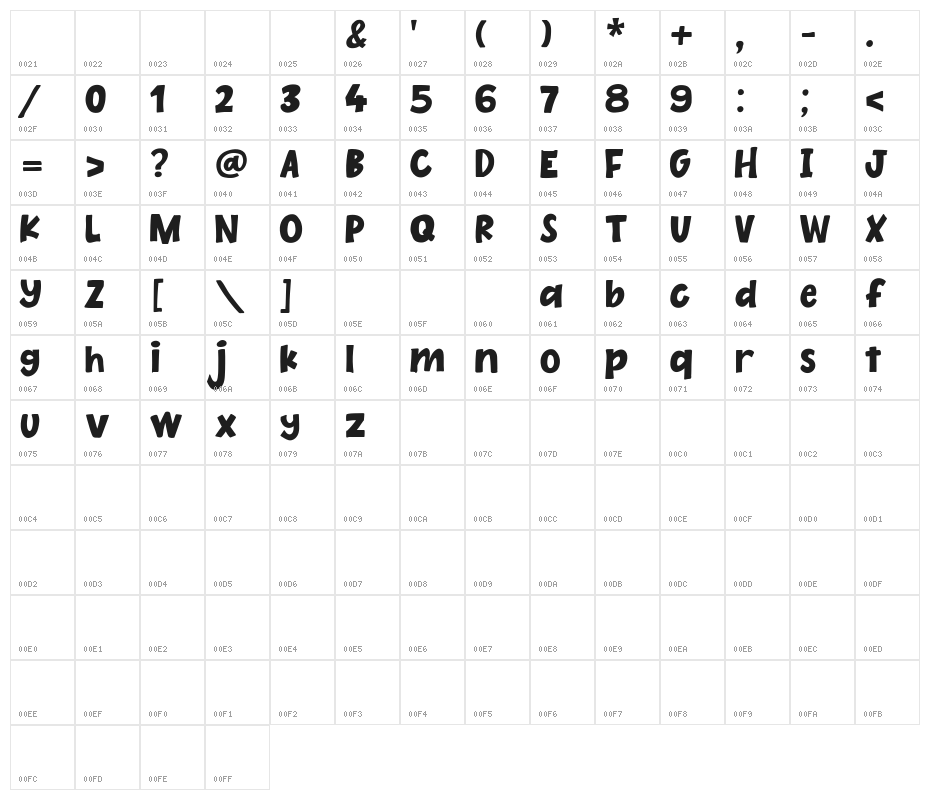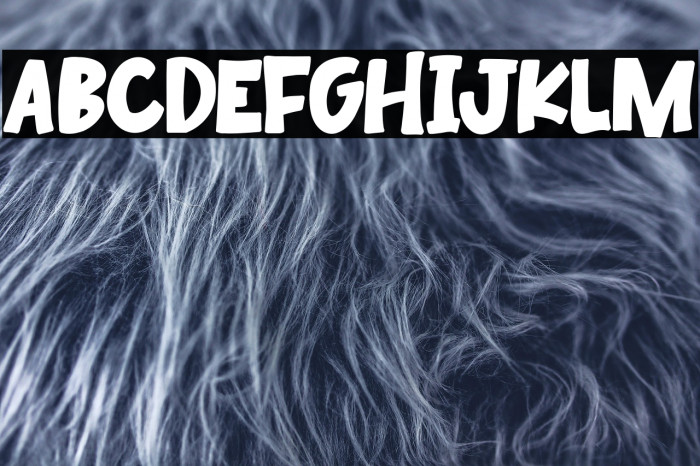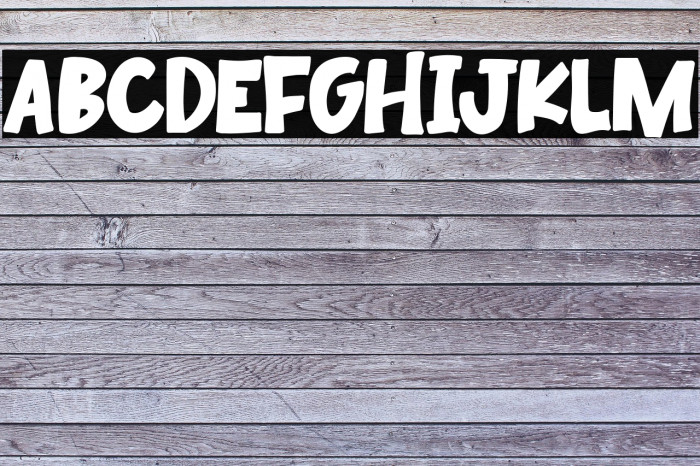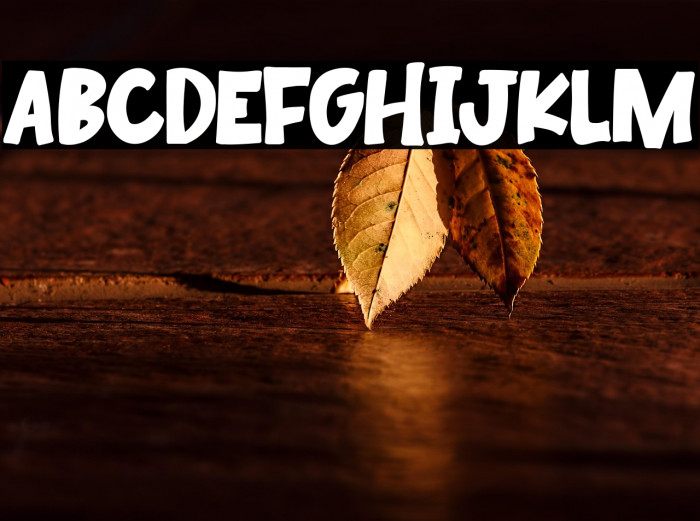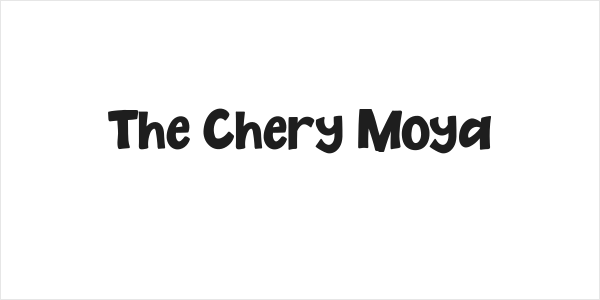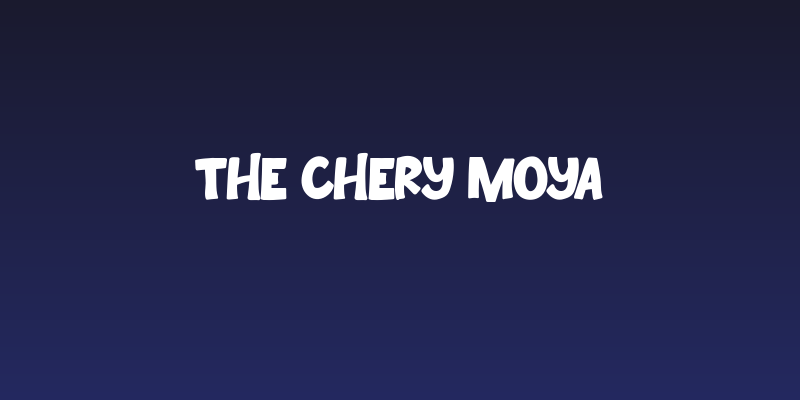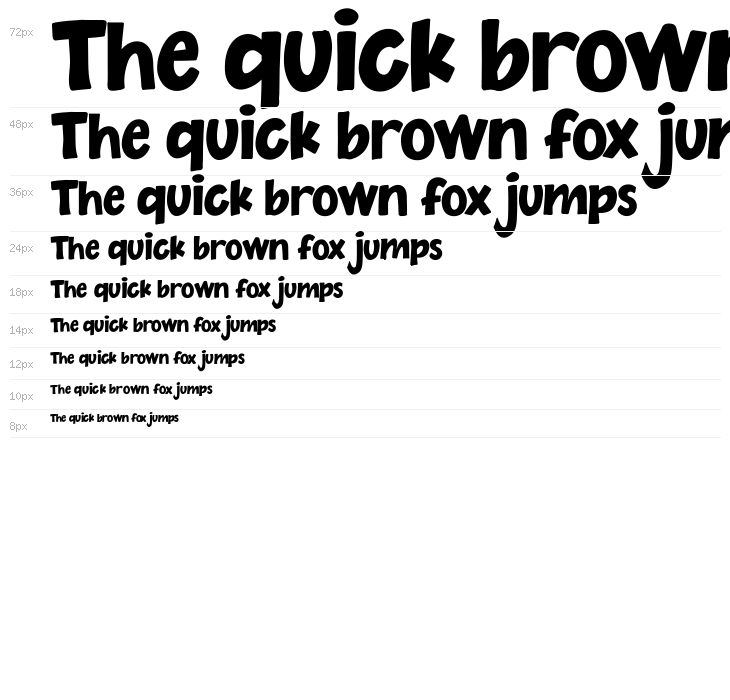
The Chery Moya Font
The Chery Moya Description
This font features a playful and bold style with a handwritten appearance. The characters are slightly irregular, giving it a whimsical and informal feel. The strokes are thick and rounded, contributing to its friendly and approachable look. The uppercase and lowercase letters maintain a consistent style, with the lowercase letters being slightly more compact. Numbers and special characters follow the same playful design, making the font versatile for various creative applications. Its unique style makes it stand out, perfect for projects that require a touch of personality and fun.
Overall StylePlayful
Proposed ProjectsIdeal for children's books, playful branding, greeting cards, and creative posters.